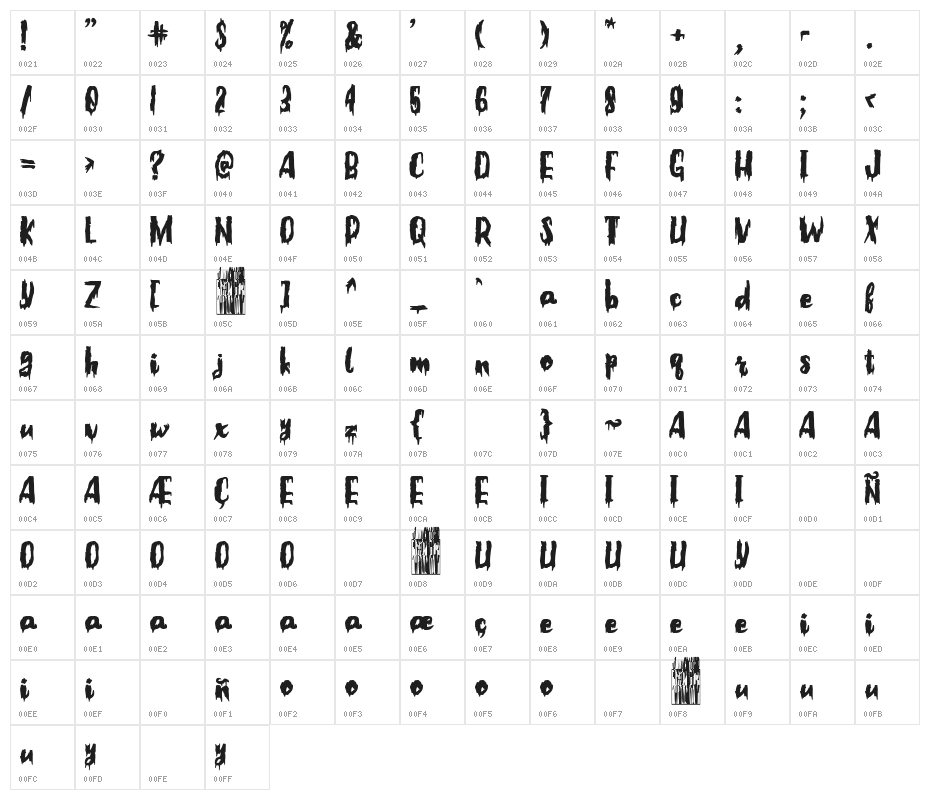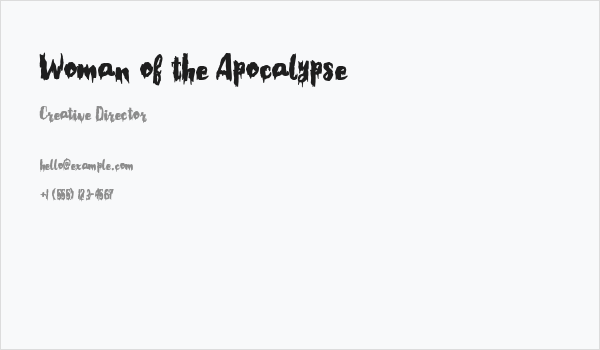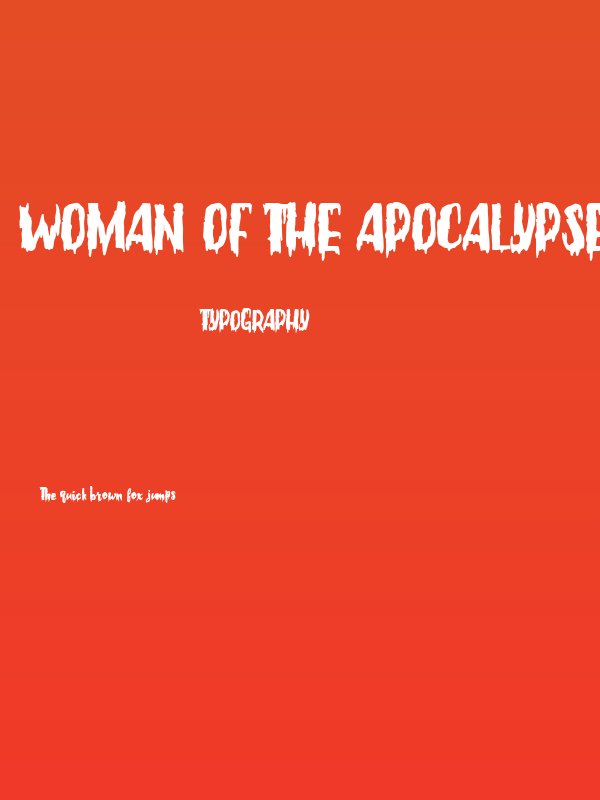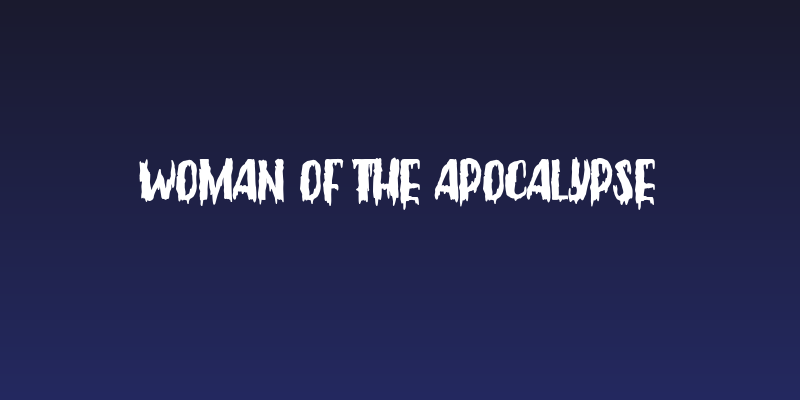
Woman of the Apocalypse Font
Woman of the Apocalypse Description
This font exudes a raw, edgy aesthetic with its jagged and irregular letterforms, reminiscent of a post-apocalyptic or horror theme. The uppercase and lowercase letters share a consistent style, characterized by uneven edges and a distressed appearance. The numbers and special characters maintain this rugged look, adding to the overall chaotic vibe. The font's bold strokes and high contrast between thick and thin lines enhance its dramatic impact, making it suitable for designs that require a strong visual statement.
| Proposed Projects | Perfect for horror movie posters, Halloween event flyers, video game titles, and edgy graphic novels. |